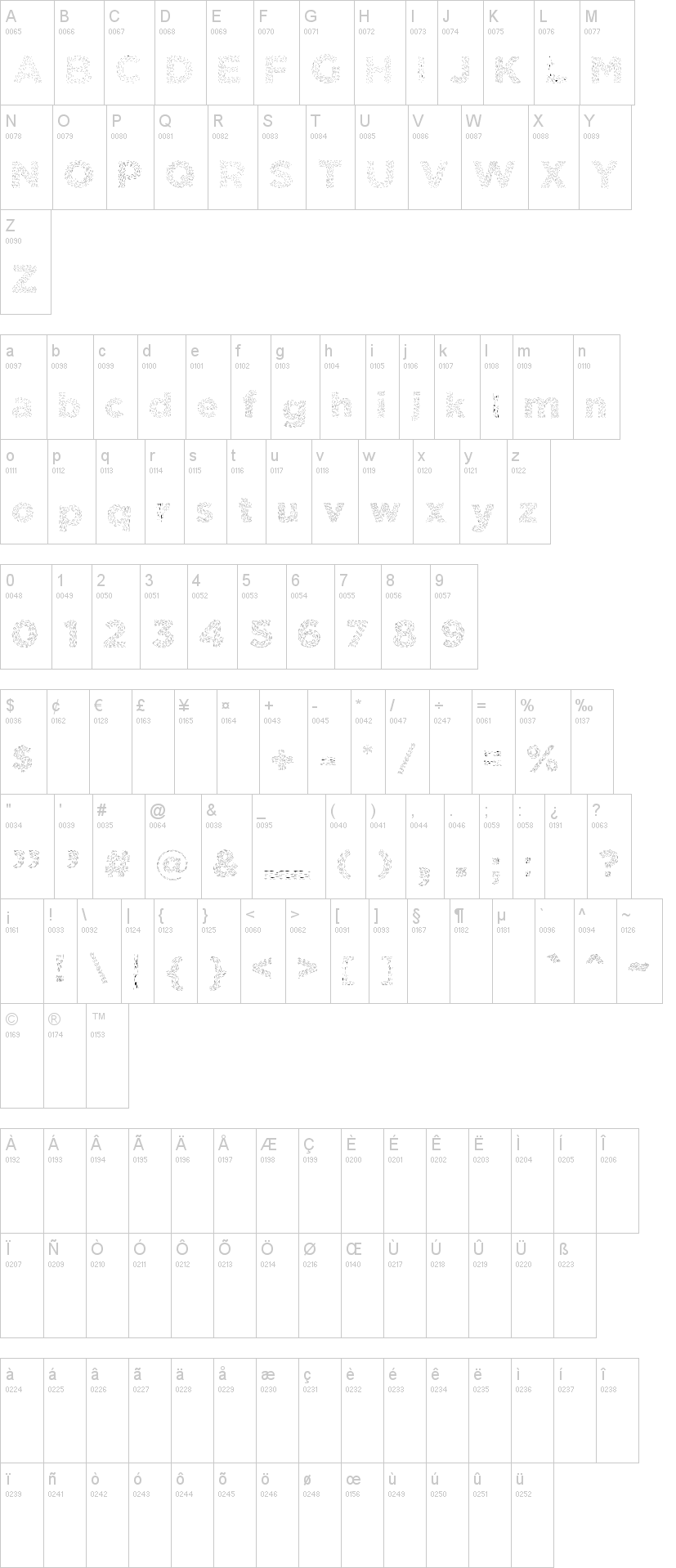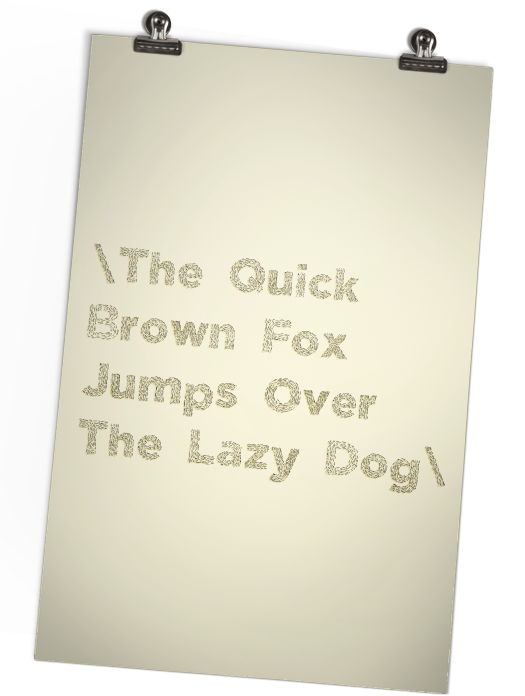
Шрифт Elmars Hairy Typeface
As a bearded person, hair is something that really give me a trademark as a human being. so yes, this font is much like an apreciation to the hair that live in my body.